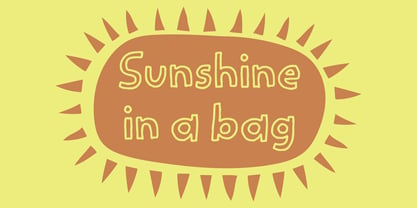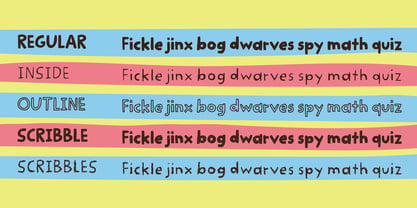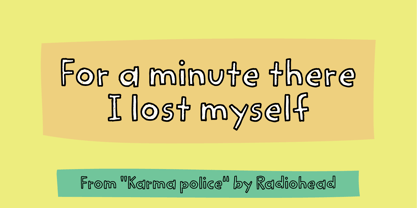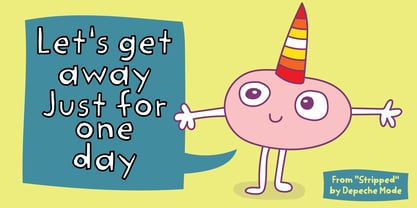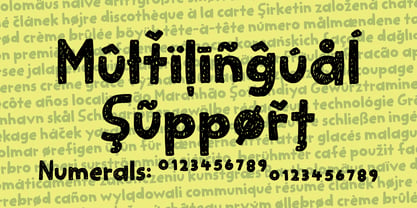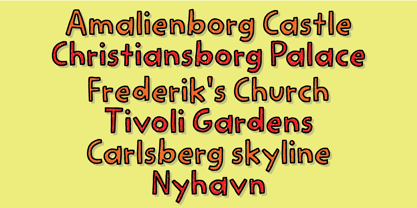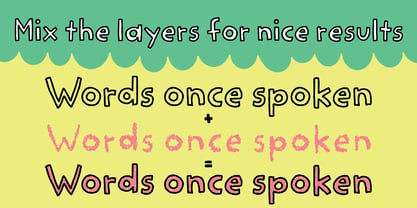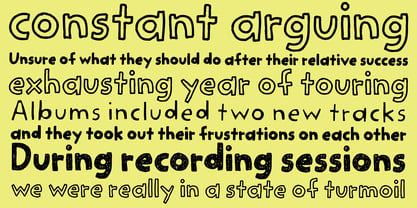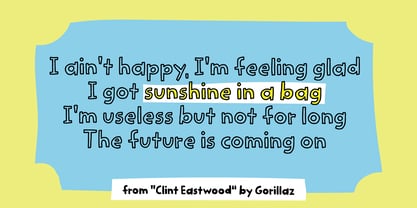
Sunshine in a bag
by Bogstav
The Sunshine in a bag Font Family was designed by Jakob Fischer and published by Bogstav. Sunshine in a bag contains 5 styles and family package options. More about this family
What exactly does "Sunshine in a bag" means? I really don't know, but it's a part of the Gorillaz song "Clint Eastwood" which is the song that got me interested in the band Gorillaz. Well, I guess you can say that this handmade, organic looking and layered comic/craft font is a tribute to the band, and their great album. I would say that "Sunshine in a bag" suits handmade designs super-duper nicely. I am thinking designs that needs text that is slightly blurred and off grid, but still legible. Play around with the different versions of the font for great results :)
Designers: Jakob Fischer
Foundry: Bogstav